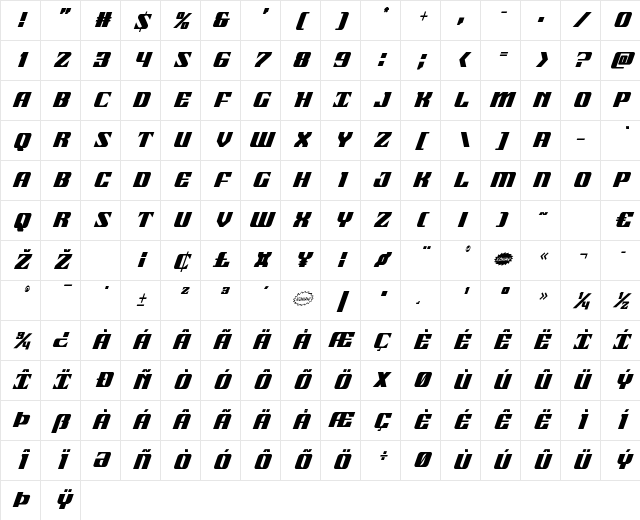
21 Gun Salute Condensed Italic Condensed Italic
Design Context for 21 Gun Salute Condensed Italic
21 Gun Salute Condensed Italic is a composed and adaptable typeface that performs quietly and consistently across a wide range of design contexts. The slanted form adds forward momentum and visual energy. Its narrow stance lets it pack a punch even in space-constrained designs.
Pro Tip: Use 21 Gun Salute Condensed Italic for emphasis, pull quotes, and subheadings where its slanted energy can add rhythm to the layout.